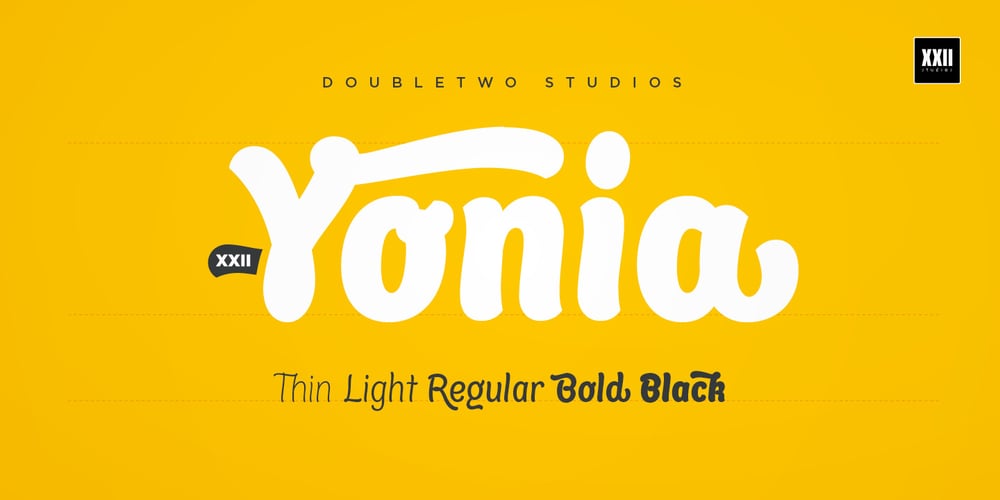
XXII Yonia Font Family was designed by Lecter Johnson and published by Doubletwo Studios. XXII Yonia contains 5 styles and family package options. XXII Yonia most of all likes packaging, headlines on posters and flyers, and it really loves to be a logo for something with food or toys. It comes along with a lot of alternate letters so you can customize the look with swashes and alternates here and there. For further details click here or download the pdf in the gallery.